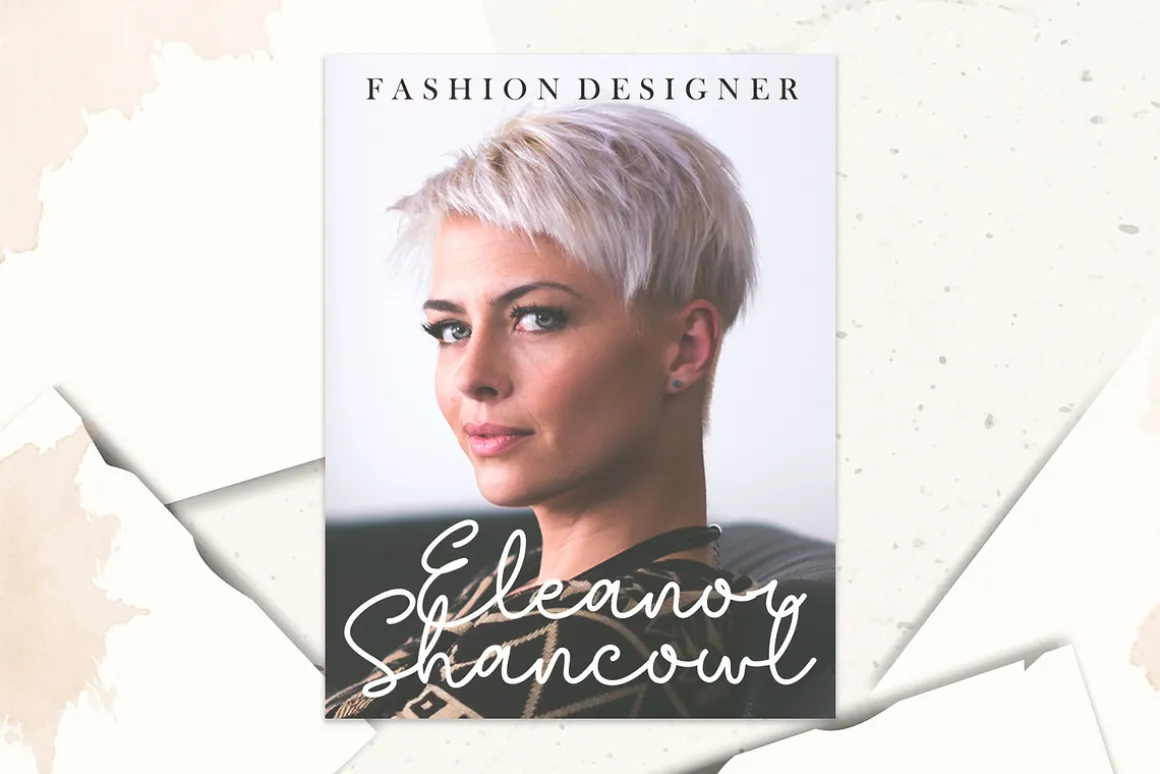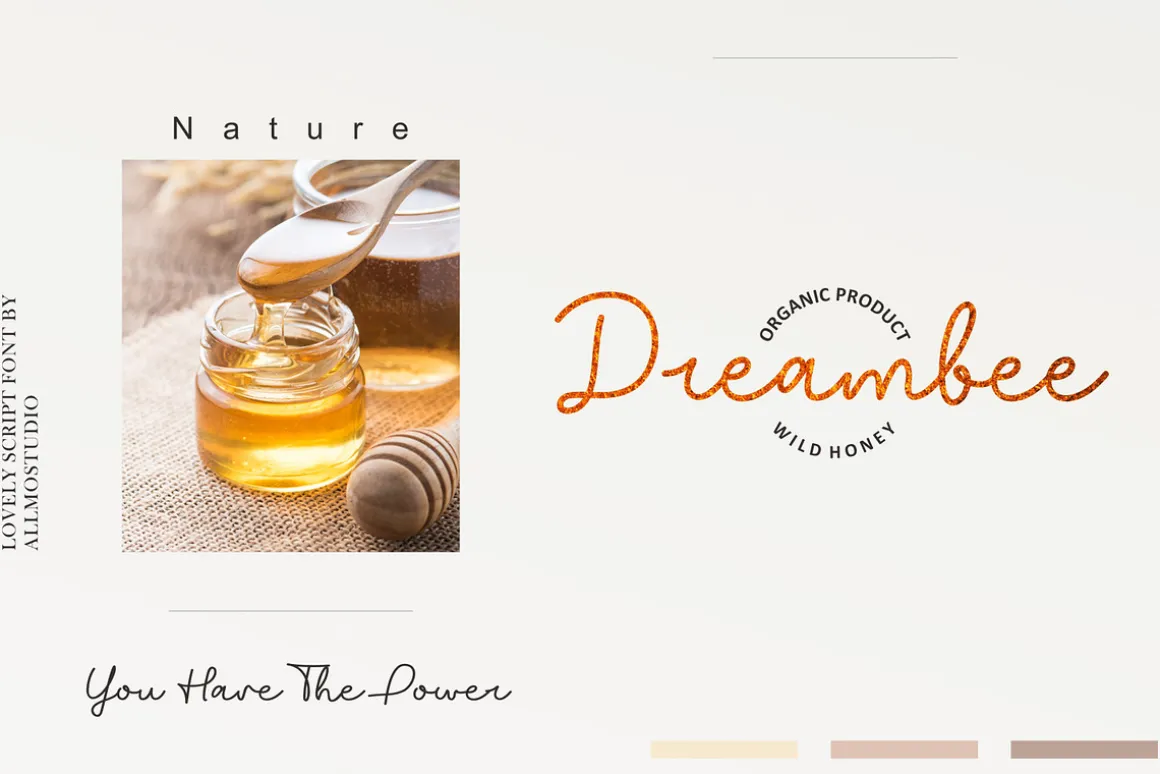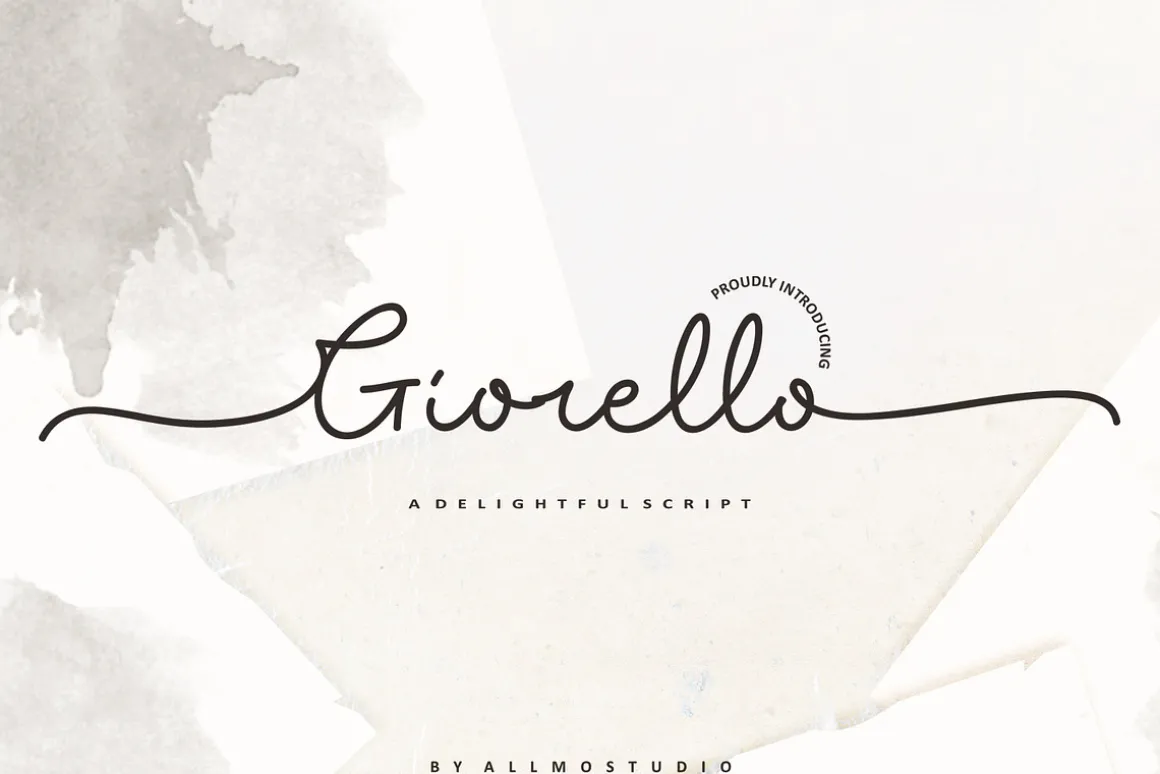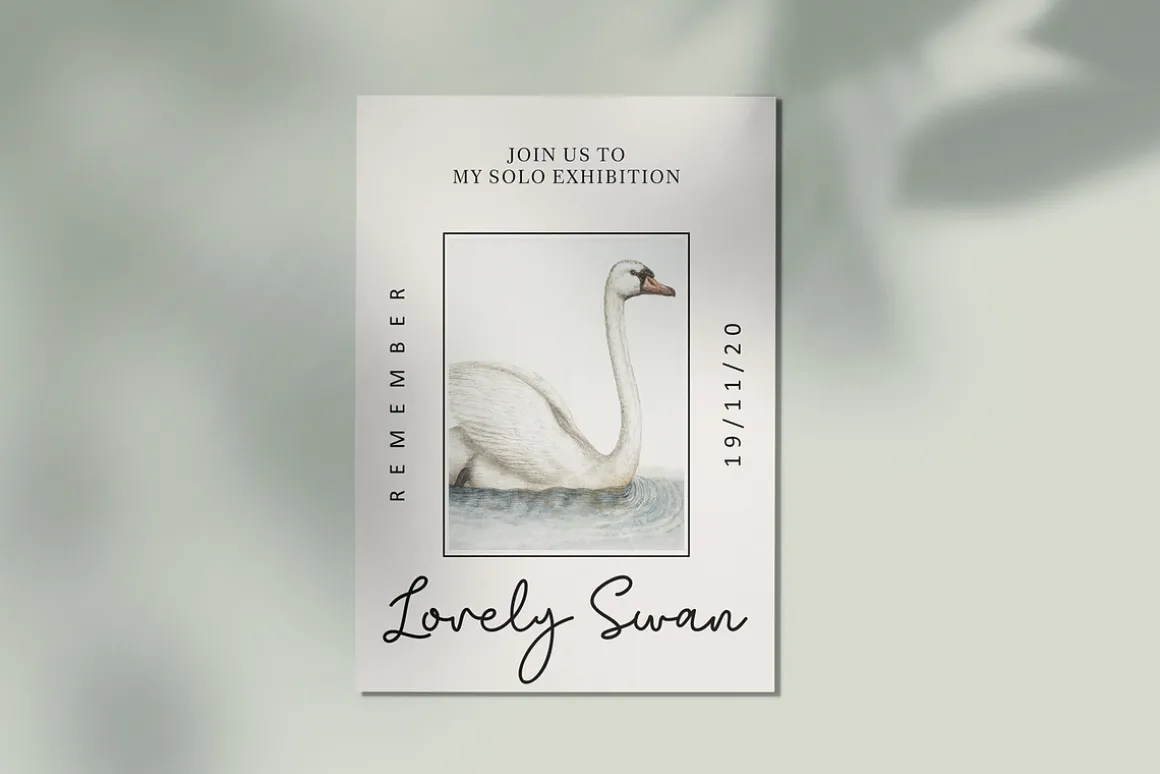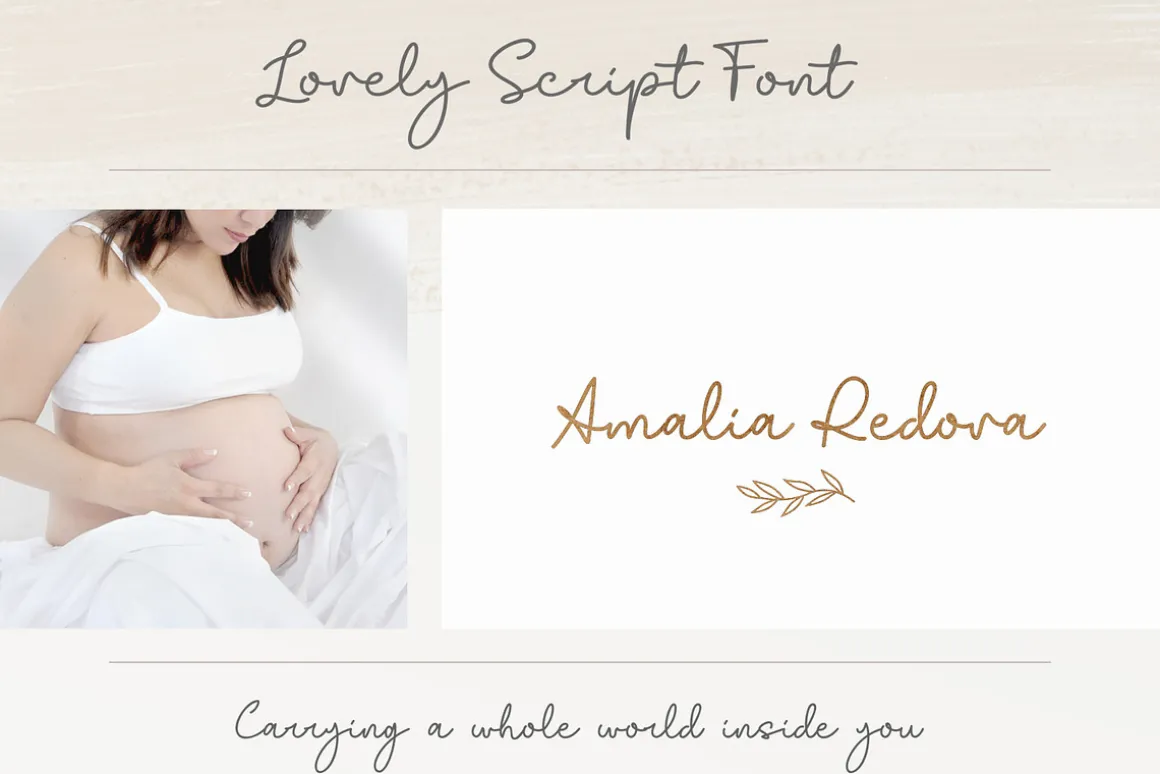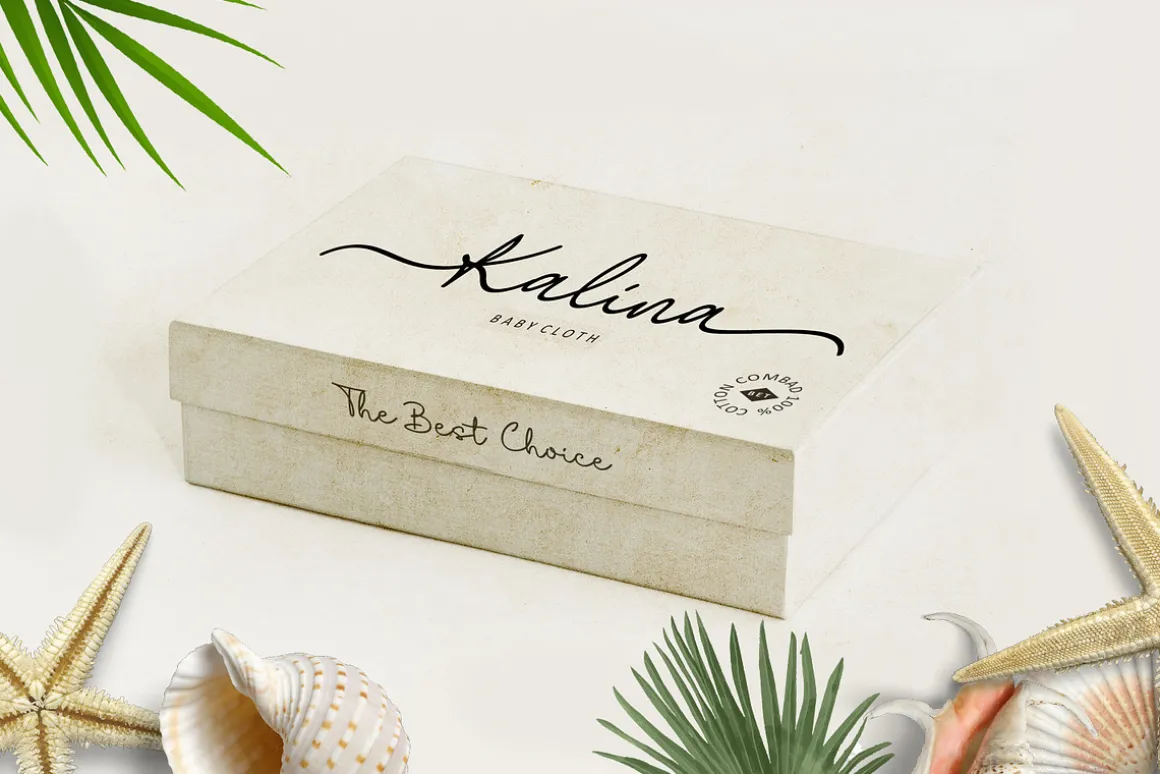
Giorello was made with a touch of pretty,lovely, feminine and classyI’ve been created to make your design more awesome.perfectly for fashion, feminine brands, blogs,wedding boutiques or any business that wants to appear upscale and chicThis font will work on any media, you can use it for logo, headline,typography poster, product packaging, or event your wedding invitation.No special software is required to use Giorello Font.Giorello are coded with PUA Unicode, which allows full access to alladditional characters without having special design software.Mac users can use Font Book, and Windows to attach to your favorite text editor / application.If you need any help or have any questions please don’t hesitate tocontact ()and I’ll do my best to help you out!